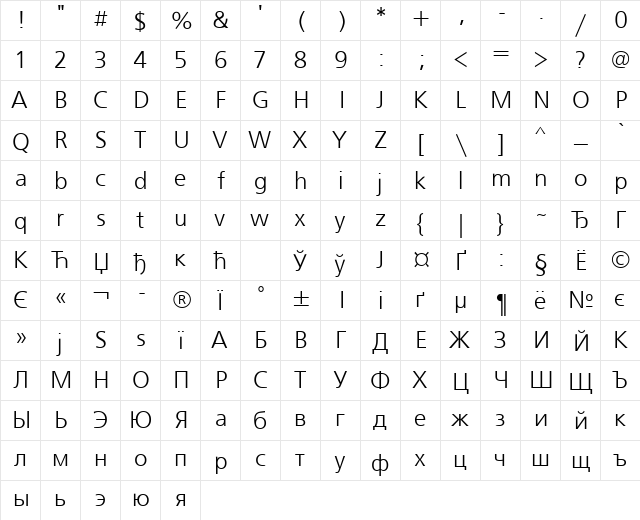
font162 Regular
Design Context for font162 Typeface
font162 offers clean, dependable letterforms without strong stylistic allegiance, making it a practical choice for designers who need flexibility.
Pro Tip: Pair font162 with a font of contrasting weight or personality to build a more expressive typographic hierarchy.